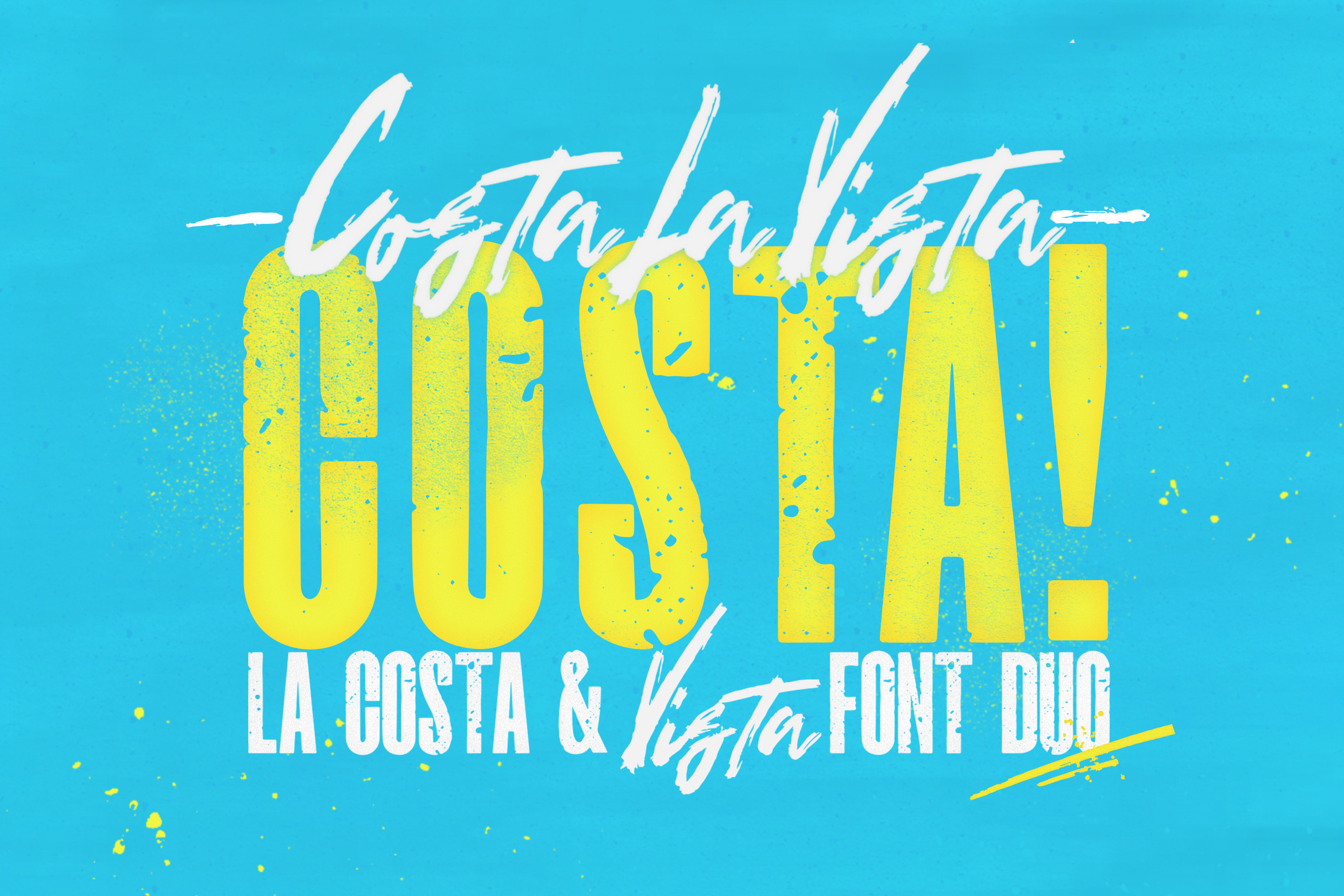
Costa La Vista Font
Costa La Vista Font is an font duo (11 Fonts and Styles Included :-) ) designed for headlines, titles, posters ,books and almost everythig else. It has his own unique style in expressed perfect condensed forms, inspired by the retro and extured fonts and and strong geometric typefaces that stays in memory once you see them, also set comes with script font to get some fresh combinations.
Costa La Vista Font is ideal for display text, print and and also for user interfaces, mobile devices, web design and posters, with a set of optimal characters for your design in any layout.
It looks especially great in large scale, although it still carries it at smaller point sizes.
Multilanguage Support for Latin (LaCosta.otf):
- Costa Book, Book Italic, Regular, Regular Italic, Bold.otf Retro inspired sans serif fashioned typeface with a modern touch. Full set of uppercase and lowercase letters, international support, punctuation.
- Vista.otf Hand made script font including all uppercase and lowercas eletters which has a complete set of A-Z, and support for US glyphs letters and basic puctions. Combinate uppercase and lowercase letters to get interesting text styles
- Vista Italic.otf Hand made MORE ITALIC script font including all uppercase and lowercas eletters which has a complete set of A-Z, and support for US glyphs letters and basic puctions. Combinate uppercase and lowercase letters to get interesting text styles
- Vista Blur.otf Hand made blured script font including all uppercase and lowercas eletters which has a complete set of A-Z, and support for US glyphs letters and basic puctions. Combinate uppercase and lowercase letters to get interesting text styles
- La Costa .otf Regular retro textured sans serif fashioned typeface with a modern touch. Full set of uppercase and lowercase letters, international support, punctuation.
- La Costa .otf ITALIC retro textured sans serif fashioned typeface with a modern touch. Full set of uppercase and lowercase letters, international support, punctuation.
- LaUnderlines.otf Underline swashes and splatters. Use them by typing any letter from A to Z and combinating them with regular letters.